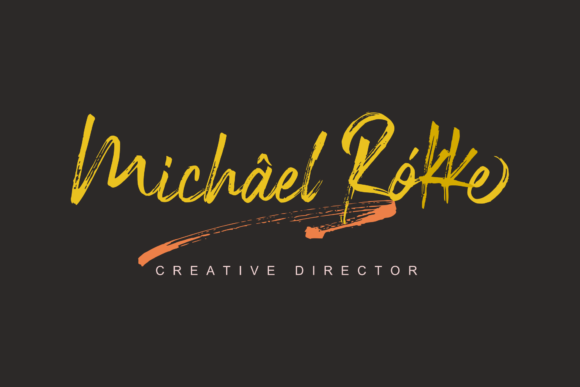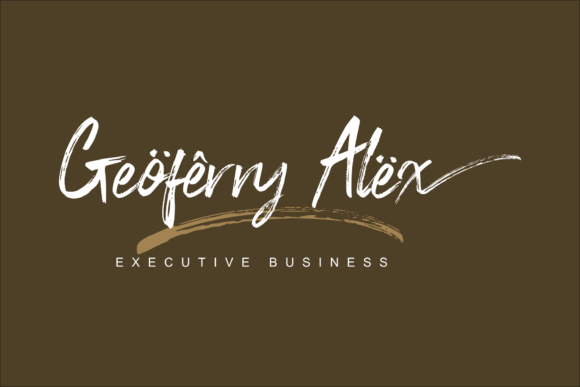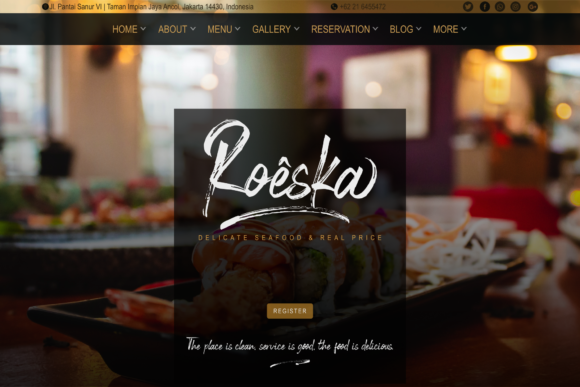
Introduction to Black Vosten Font
Do you remember that moment when you’re working on a design project and everything just clicks into place? The colors, the typography, the overall feel – it’s like magic. For designers, finding that perfect font can be the difference between a good design and a great one. And that’s exactly where the Black Vosten Font comes in.
This dark, yet fun handwritten font has a bold feel that’s sure to elevate any design project. With its unique charm, you can add a touch of personality to your work and make it truly stand out. Whether you’re working on a creative project or just need a reliable design resource, the Black Vosten Font is a high-quality addition to your toolkit.
Key Features of Black Vosten Font
- Designed to provide a clean and modern aesthetic, making it perfect for use in logos, headings, and body text.
Honest Review: Black Vosten Font
As a designer, I’m always on the lookout for high-quality design resources to elevate my creative projects. The Black Vosten Font has been a great find for me. I downloaded it for free, and I must say, it’s been a game-changer for my designs.
What works well: ✨ The font is versatile and comes in a range of weights, making it perfect for headings, titles, and body text. The font’s modern design gives my projects a sleek and professional look. I’ve also used it for social media graphics and found it to be highly effective.
What doesn’t: ⚠️ While the font is free to download, it’s not ideal for using on a transparent background. The font’s design doesn’t quite work with a transparent background, which can be a limitation for some designers.
- Modern and versatile design
- Not ideal for transparent backgrounds
Overall, I’m impressed with the Black Vosten Font. It’s a great addition to my design toolkit, and I’d highly recommend it to fellow designers. Just be aware of its limitations, and you’ll be all set to create stunning designs with this font.
The Black Vosten Font is a high-quality design resource that can elevate your creative project. It features a clean and modern aesthetic, perfect for a wide range of applications.
Tips for Getting the Most Out of Black Vosten Font
For best results, use the Black Vosten Font on a high-contrast background to maximize its impact. You can also experiment with different font sizes and styles to create a unique visual effect.
The Black Vosten Font is perfect for creating logos, branding materials, and marketing collateral. Its clean and modern aesthetic makes it ideal for a wide range of creative projects, from business cards to website headers.
Alternatives to Black Vosten Font
Arial Black is similar to Black Vosten Font in terms of its bold and eye-catching appearance. However, it lacks the unique flair and character that Black Vosten Font offers, making it a more conservative choice for designers.
2. Impact
Impact is a sans-serif font that is known for its bold and dramatic appearance. It’s ideal for use in headings, titles, and other design elements where a high level of visual impact is desired. When to use: For creative projects that require a bold and attention-grabbing look.